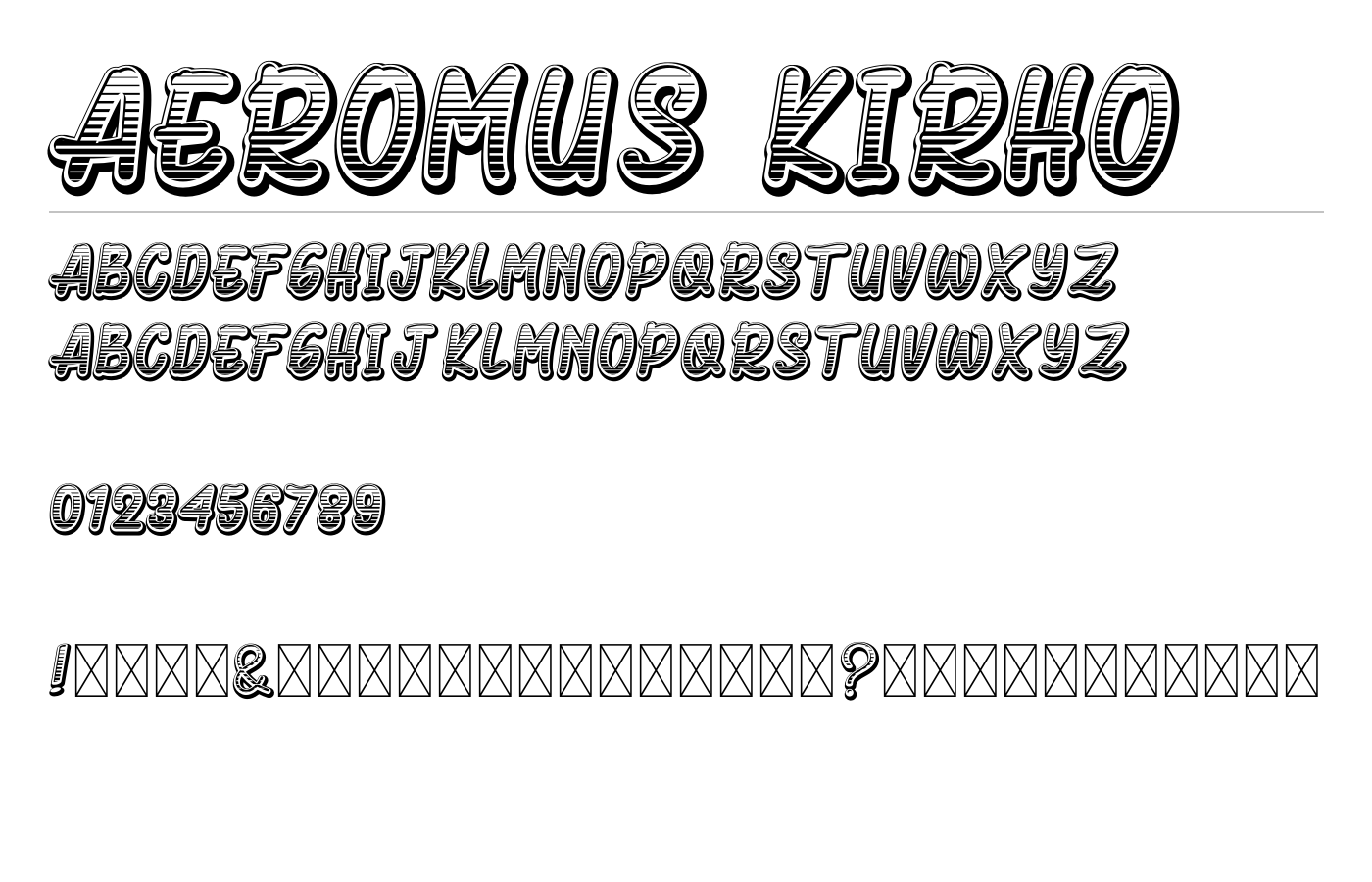
Aeromus Kirho is a bold, playful sans serif display font with a distinctive layered, striped shadow effect that gives it a dynamic, retro-inspired feel. Its rounded, uppercase letterforms feature a casual italic slant, making it perfect for eye-catching headlines, posters, and branding that aim to convey fun and energetic vibes. This font works best in large sizes where its unique textures and three-dimensional look can stand out and make a strong visual impact.
Aeromus Kirho Font